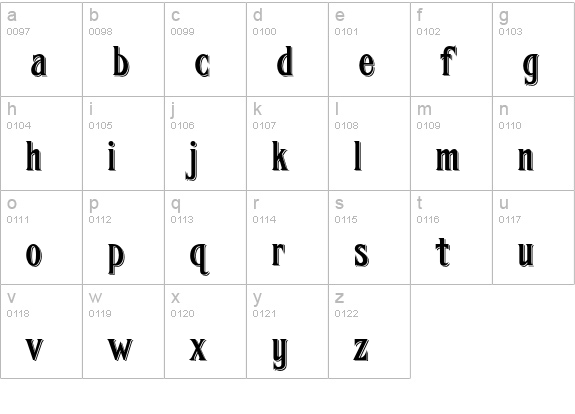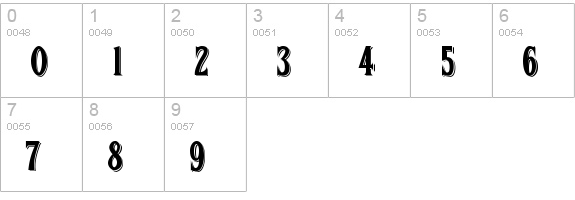
FHA Condensed French Shaded NC is a distinctive, condensed-width variant in the FHA typeface family \xE2\x80\x94 well suited to design and typography projects.
The FHA Condensed French Shaded NC font is a stunning typeface that exudes elegance and sophistication. With its unique blend of condensed letterforms and delicate shading, this font adds a touch of vintage charm to any design project. Whether you're creating a logo, a poster, or a wedding invitation, this font is sure to captivate your audience. What sets the FHA Condensed French Shaded NC font apart is not only its exquisite design but also its versatility. It can be used for both modern and traditional designs, making it perfect for a wide range of applications. The condensed letterforms allow for more text to be displayed in a limited space, making it ideal for headlines or any design that requires a compact layout. One of the best things about the FHA Condensed French Shaded NC font is that it is freely available to download at FontsMarket.com. This means that you can easily access this beautiful typeface without having to spend a dime. Whether you're a professional designer or a hobbyist, this font is a valuable addition to your font library. The attention to detail in the design of this font is truly remarkable. The delicate shading adds depth and dimension to each letter, creating a three-dimensional effect that is visually stunning. The clean lines and sharp edges give the font a polished and refined look, making it perfect for high-end design projects. Whether you're looking to add a touch of sophistication to your branding or elevate the aesthetics of your printed materials, the FHA Condensed French Shaded NC font is a fantastic choice. Its versatility, elegance, and availability for free download make it a must-have for any designer. So go ahead and give your designs that extra touch of class with this remarkable typeface.